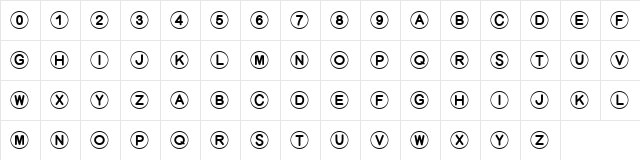
Letter Beads Regular
| Foundry | Typadelic Fonts |
| Designer | Ronna Penner |
Design Context for Letter Beads Typeface
Letter Beads takes a measured approach to typography — its balanced proportions and neutral character make it a reliable workhorse for both digital and print work.